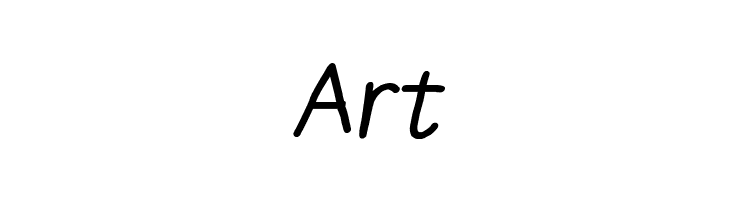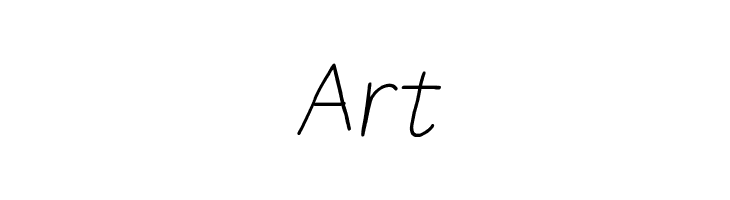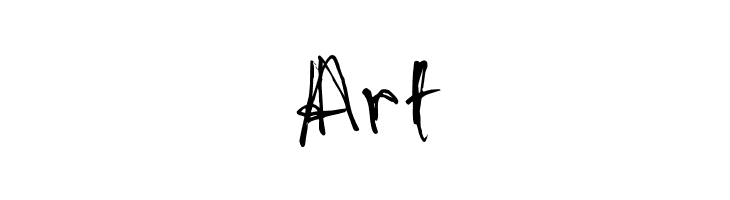
A bold, playful handwritten font with energetic strokes and a lively feel.
( Fonts by 97Designs )
A bold, handwritten font with a casual and artistic style.
( Fonts by Holydie Studio )
Handwritten cursive script font.
( Fonts by Ainun Jinan )
A playful, handwritten-style font with tall, narrow characters and rounded edges.
( Fonts by Ainun Jinan )
A playful and elegant script font with flowing, cursive letters.
( Fonts by Viola Type )
A bold, brush-style font with a lively and handwritten appearance.
( Fonts by NJ Studio )
Playful handwritten script font.
( Fonts by NJ Studio )
Bold, playful handwritten script font.
( Fonts by NJ Studio )
Bold, italic script font with a modern handwritten style.
( Fonts by Scratchones )
A playful, handwritten script font with a modern and energetic style.
( Fonts by Scratchones )
Elegant cursive script with a handwritten style.
( Fonts by Ardyana Types )
A playful handwritten font with dynamic strokes and a lively style.
( Fonts by Scratchones )
Casual, tall handwritten script with playful, flowing strokes.
( Fonts by Beta Dine )
A playful, casual handwritten font with fluid, connected strokes.
( Fonts by Inermedia Studio )
Playful handwritten font with a whimsical style.
( Fonts by Andi Moz )
Playful handwritten script font.
( Fonts by Rissyletter Studio )
Playful, handwritten sans-serif with tall, narrow letters.
( Fonts by Rissyletter Studio )
A graceful, handwritten script with thin lines and flowing forms.
( Fonts by Andi Moz )
A playful, handwritten script font with elegant loops and curves.
( Fonts by Letter Art Studio )
( Fonts by UI Creative )
( Fonts by ONG Type )
Playful handwritten font with a casual style.
( Fonts by MJB Letters )
Elegant handwritten script font.
A playful, handwritten font with smooth curves and a casual style.
( Fonts by Nuryanto Dwi )
A playful, informal handwritten font with irregular strokes and a casual vibe.
( Fonts by ONG Type )
Casual handwritten font with rounded, playful forms.
( Fonts by MJType )
A playful, handwritten font with smooth, flowing strokes and a casual style.
( Fonts by Etik Fatimah )
Casual handwritten script with playful, rounded strokes.
( Fonts by Etik Fatimah )
Handwritten cursive script font.
( Fonts by Alif Ryan Zulfikar )
( Fonts by ONG Type )
A playful, casual handwritten font with smooth, rounded edges and consistent strokes.
( Fonts by Jen Jones )
A playful, handwritten font with a casual and friendly vibe.
( Fonts by Jen Jones )
A playful, casual handwritten font with rounded, consistent strokes.